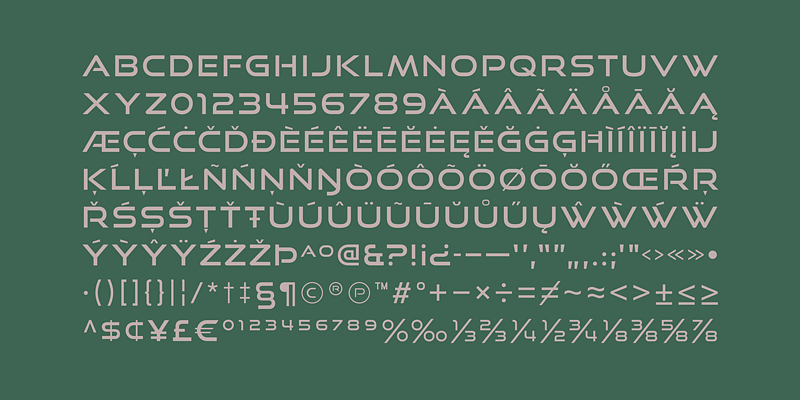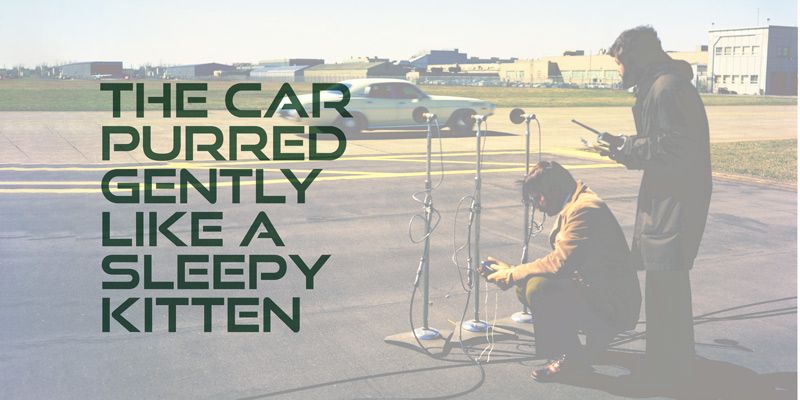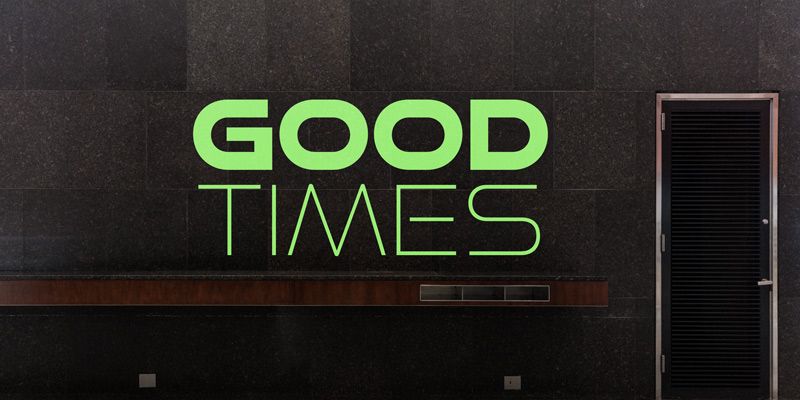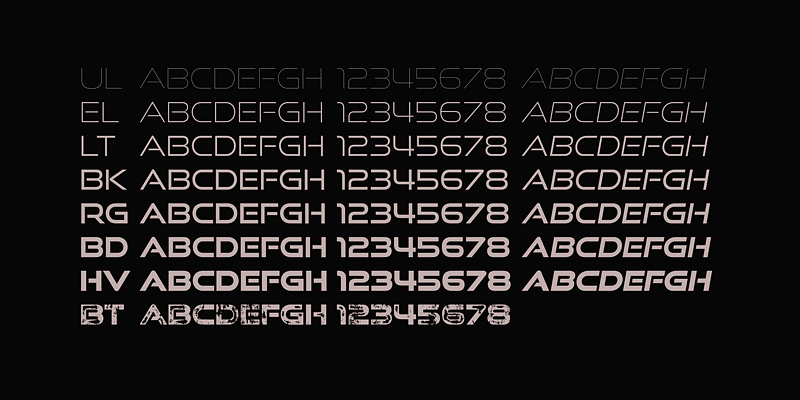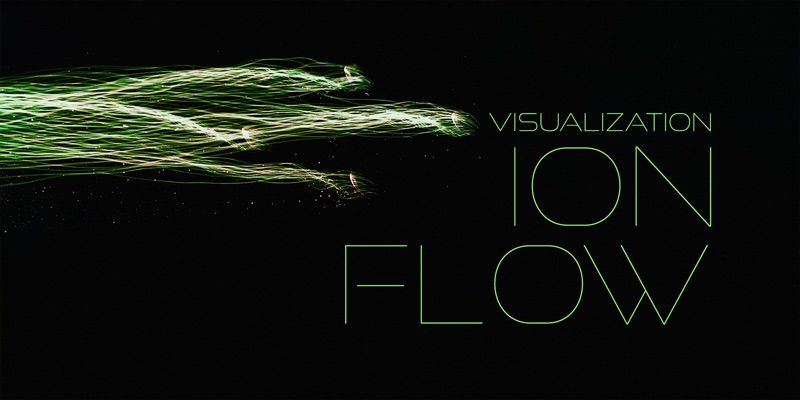
Good Times spreads rounded, capsule-based capitals across the line like a badge on a machine. Its wide, horizontal stance gives short names and model codes immediate presence on vehicles, equipment, launch screens, and panoramic displays. That makes it useful for electric mobility, robotics, gaming hardware, and sports products that need a technical identity visible from a distance. The family offers seven weights from UltraLight to Heavy, with matching italics, plus the contrasting Bad Times treatment. Those options can vary the force of a product name while keeping the recognizable construction. Good Times is most at home when a short name has room to expand.